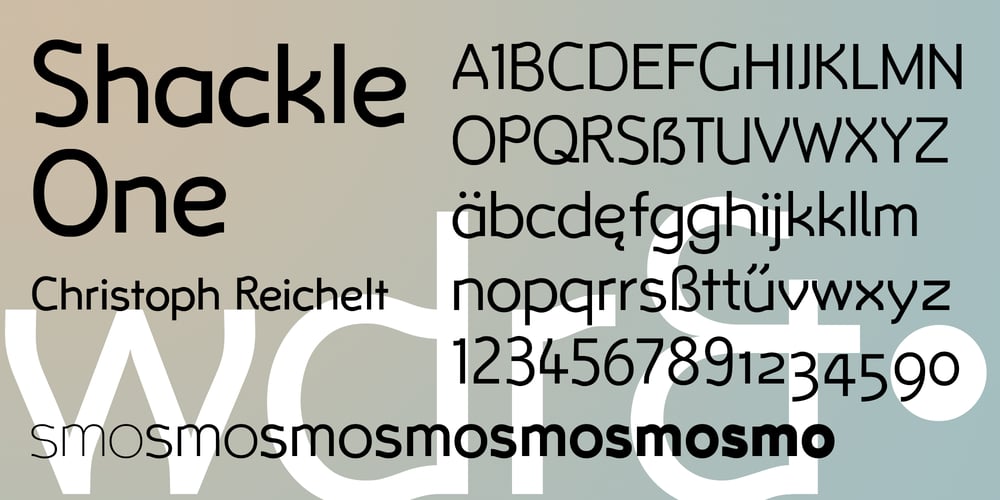
Shackle One Font Family was designed by Christoph Reichelt and published by Christoph Reichelt. Shackle One contains 7 styles and family package options. Shackle One is a geometric Sans Serif with a twist. As a modern classic that does not wear out visually it is suitable, for example, for luxury items, leather goods, watches and jewelry, high-class sports, documentation of historical technology or graphics in the field of art and design. It works excellently for huge headlines, but can also show particular strengths in continuous text – its gray value is almost flawlessly uniform. All line connections and terminations are perpendicular, which means that slopes or curves have a light bend at their ends, similar to the lordosis of the cervical spine. This makes the font look upright and straight and at the same time agile and dynamic, like an athlete with good posture – a typeface that is powerful and confident without appearing steely or violent.Shackle One is a classic but casual looking font with sophisticated details. It has a classy appearance without being pretentious. It can appear stern and serious as well as playful and humorous. Its strong character also makes it an excellent corporate font for certain branches. You will love it.